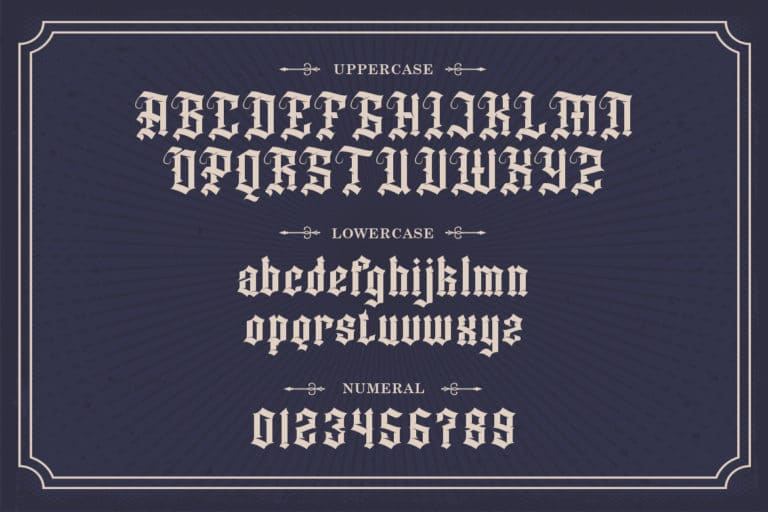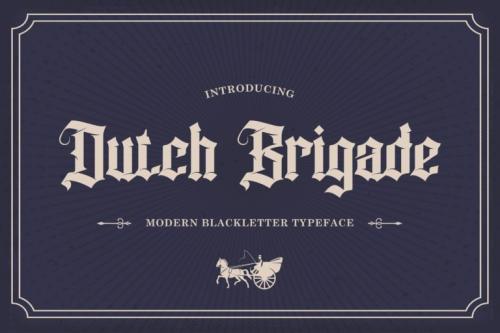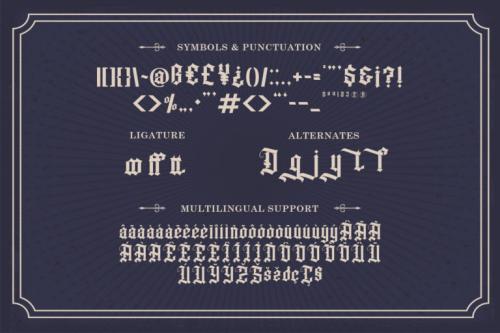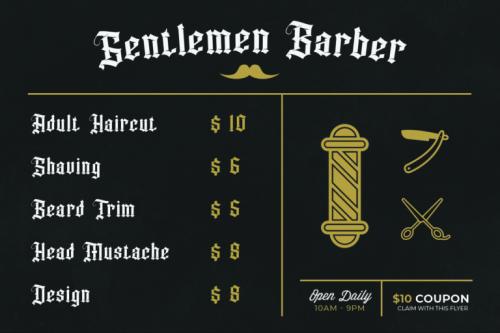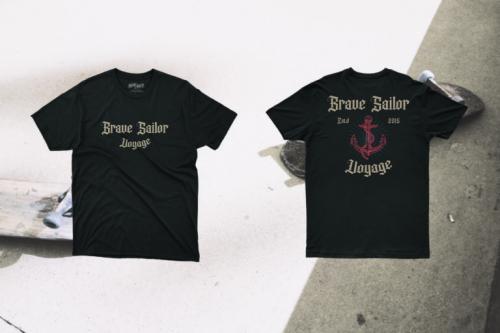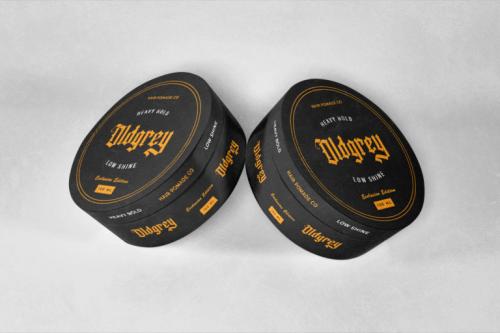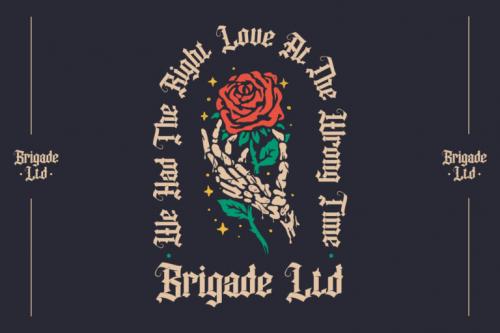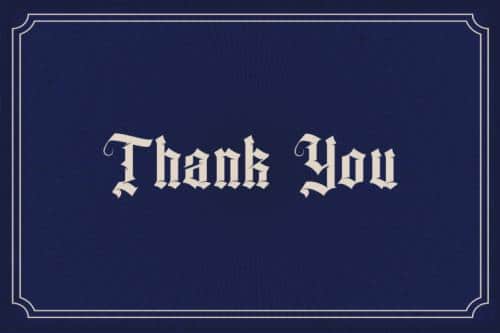
Dutch Brigade is a modern blackletter font that is both appealing and enthralling! It brings extra ornaments! Dutch Brigade is perfect for product logo, posters, barber shop, headline, packaging, badge, wedding cards, and more!